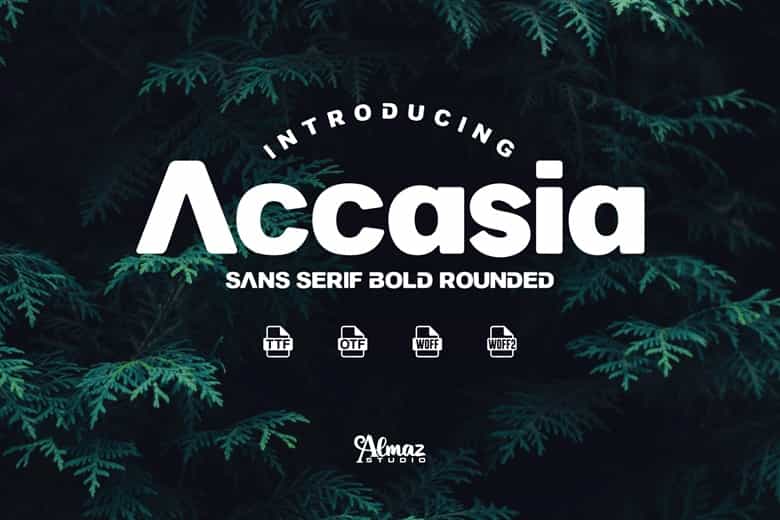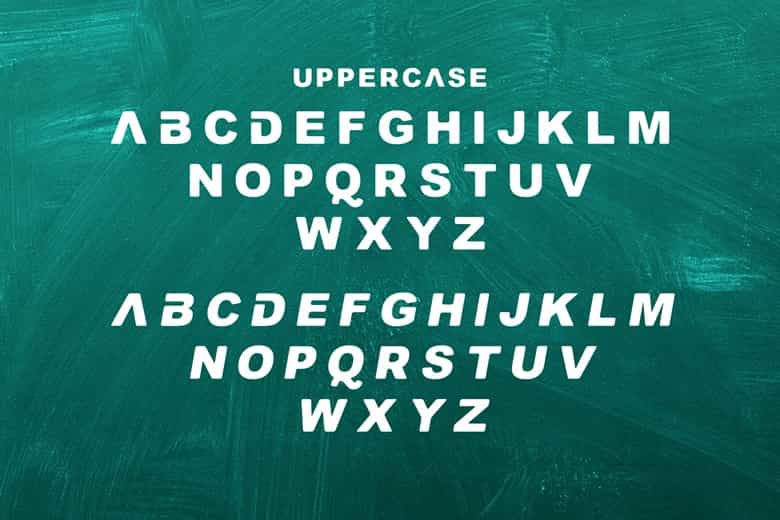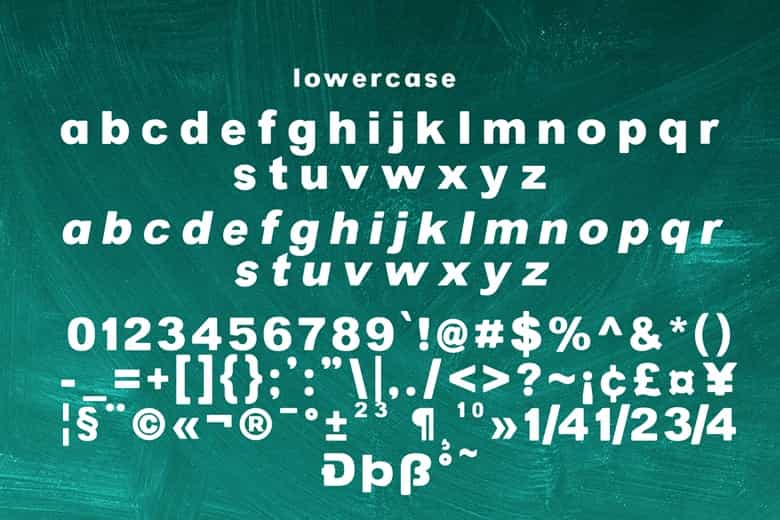
Accasia is a stylized rounded sans serif typeface having a beautiful contrast. It is a modern sans serif font. The font is ideal in your design requirements like layout designs, apparel, magazines, posters, logos, branding and so on.